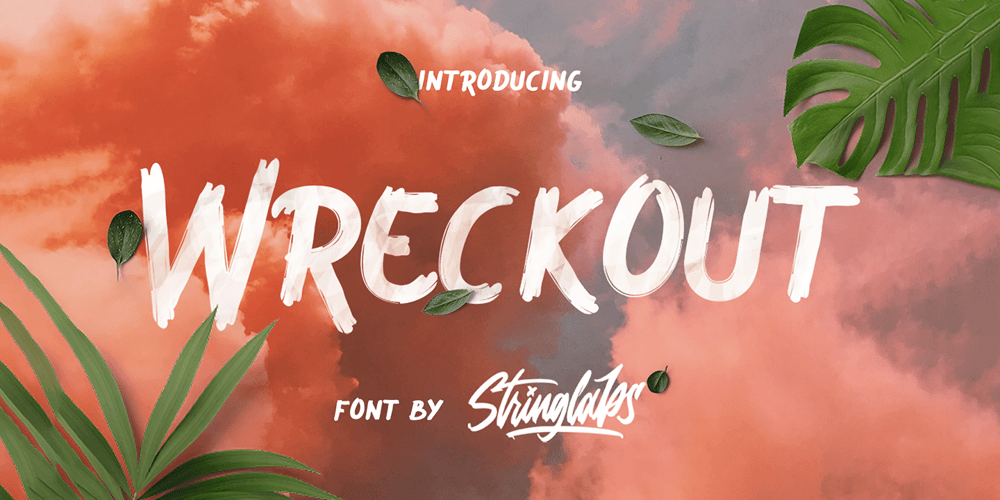
Wreckout Font Family was designed by Virgiawan Listanto and published by Stringlabs Creative Studio. Wreckout contains 1 styles and family package options. Wreckout is a gorgeous display font that feels bold. It will turn any design project into an eye-catcher! Its trendy and delicate makes Wreckout look gorgeous in wedding invitations, thank you cards, quotes, greeting cards, logos, business cards and much more. It also includes stunning alternates, ligatures and multiple language support.